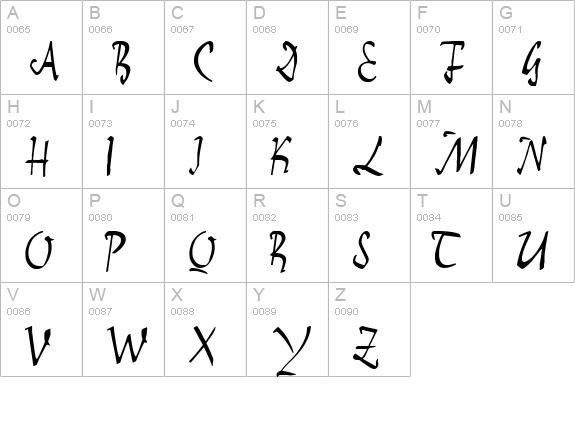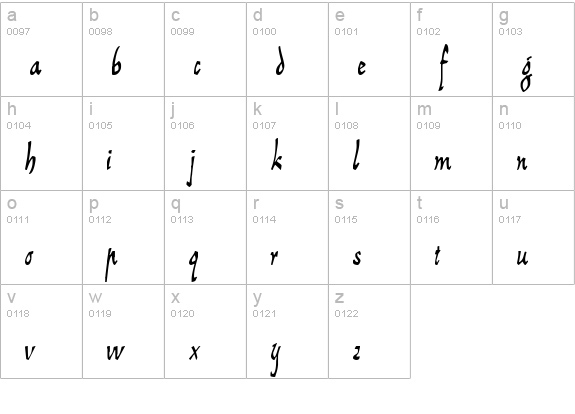
E BrantScript Font Details
Introducing E BrantScript, a beautifully handcrafted font that will add a touch of elegance to your designs. This script font features delicate and flowing curves, giving it a sophisticated and modern look. Perfect for a variety of design projects, from wedding invitations to branding materials, E BrantScript will effortlessly enhance your creations. But here's the best part - E BrantScript is completely free! That's right, you can download this stunning font without spending a dime. Whether you're a professional designer or a hobbyist, this font provides you with endless possibilities, all at no cost. To get your hands on this amazing font, simply head over to FontsMarket.com. There, you'll find a wide range of fonts, including E BrantScript, all available for free download. FontsMarket.com is a trusted source for high-quality fonts, and their vast collection ensures that you'll find the perfect font for any project. E BrantScript stands out from the crowd with its unique and artistic design. Its smooth and effortless strokes create a sense of elegance and sophistication that is sure to captivate your audience. Whether you're designing a logo, creating a wedding invitation, or working on a branding project, this font will add a touch of class and professionalism. Not only is E BrantScript visually stunning, but it is also incredibly versatile. With a wide range of ligatures and alternate characters, you can customize and personalize your designs to suit your style. This font offers endless possibilities and allows you to truly make your designs stand out. So why wait? Download E BrantScript today and unleash your creativity. With its free availability at FontsMarket.com, there's no reason not to give this font a try. Whether you're a seasoned designer or just starting out, this font is sure to become a valuable asset in your collection. Elevate your designs with E BrantScript and let your creativity shine.